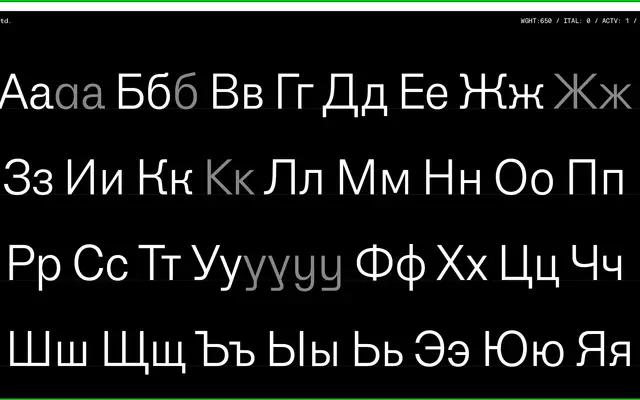
Algorytm Clear specimen from Interval Type
A geometric sans with a broad alternate character set covering Latin and Cyrillic, running across six weights with italics.
Algorytm Clear spans six weights from Extralight to Bold, each with a matching italic, and ships with an extensive suite of OpenType alternates that let designers toggle between humanist and strictly geometric letterforms. Character-level options include one-storey and neutral 'a' forms, geometric cuts of 'f', 'r' and 't', simplified and angular variants of 'g' and 'y', and dedicated Cyrillic alternates for К and Ж. The result is a workhorse geometric sans with enough flexibility to shift register between warm and clinical depending on the alternate set chosen.
The extensive alternate character set — including one-storey 'a', geometric 'f', 'r' and 't', and simplified 'g' and 'y' — points firmly toward a geometric sans tradition, with the 'Clear' designation suggesting a neutral, legible variant of the broader Algorytm family.